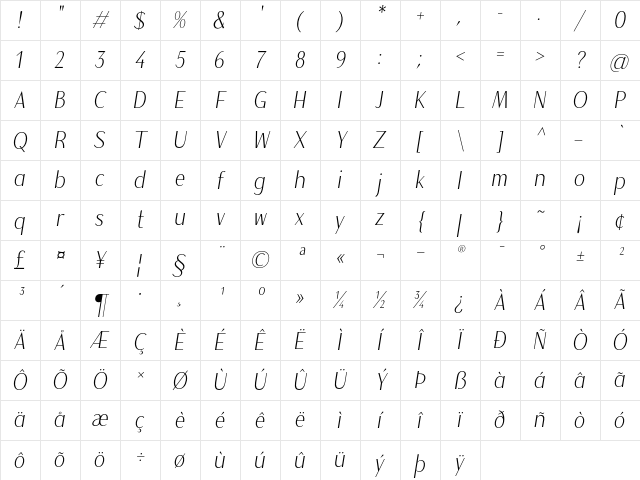
Magnisa Sans is a composed and adaptable typeface that performs quietly and consistently across a wide range of design contexts. The slanted form adds forward momentum and visual energy.
Pro Tip: Use Magnisa Sans for emphasis, pull quotes, and subheadings where its slanted energy can add rhythm to the layout.